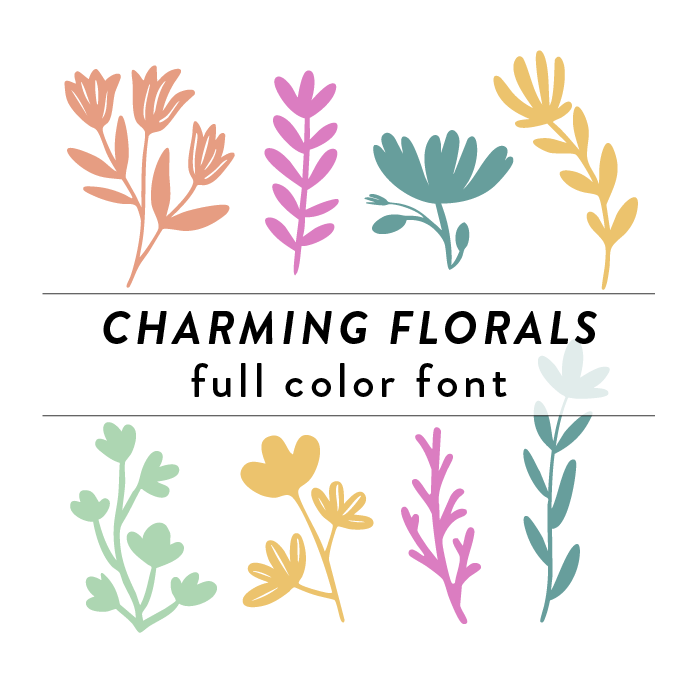
Charming Florals Full Color Font is a whimsical and elegant font design featuring intricate floral patterns in vibrant colors. Perfect for adding a touch of charm and sophistication to any project, this font is ideal for invitations, greeting cards, and branding materials. Its detailed floral elements make it stand out and add a unique touch to any design. This font is a OTF craft font that will appear in color only when used with the silhouette software.